Wild west fonts bring the rugged spirit of the American frontier to your creative projects. Whether you’re designing a vintage saloon poster, creating a western movie title, or crafting a ranch-themed brand identity, these carefully curated western fonts capture the essence of the Old West. From weathered wood textures to bold sheriff badges, wild west fonts offer the perfect typography solution for any project that needs that authentic frontier feel. These western fonts combine classic American typography with modern design sensibilities, making them perfect for both traditional and contemporary applications.
Wild West Fonts
Rio Grande
Rio Grande captures the essence of the American Southwest with its bold, weathered appearance. This wild west font features distinctive serifs and a rugged texture that evokes images of dusty trails and frontier towns. Perfect for creating authentic western signage, movie titles, or any design that needs that classic cowboy aesthetic.
Carnevalee Freakshow
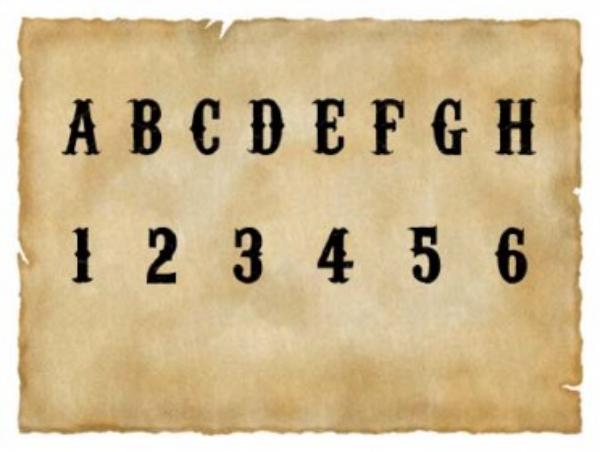
Carnevalee Freakshow brings a theatrical flair to western fonts with its dramatic, carnival-inspired design. This unique typeface combines Old West charm with circus aesthetics, making it ideal for saloon posters, entertainment venues, or any project that needs a touch of vintage showmanship and frontier drama.
Winslet
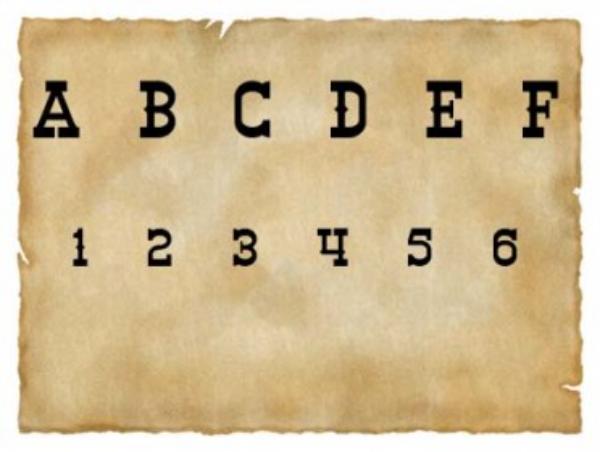
Winslet offers a refined take on classic western fonts with its elegant yet rustic character design. This versatile typeface balances sophistication with frontier authenticity, making it perfect for upscale western brands, vintage labels, or any design that requires a more polished wild west aesthetic.
IFC Insane Rodeo
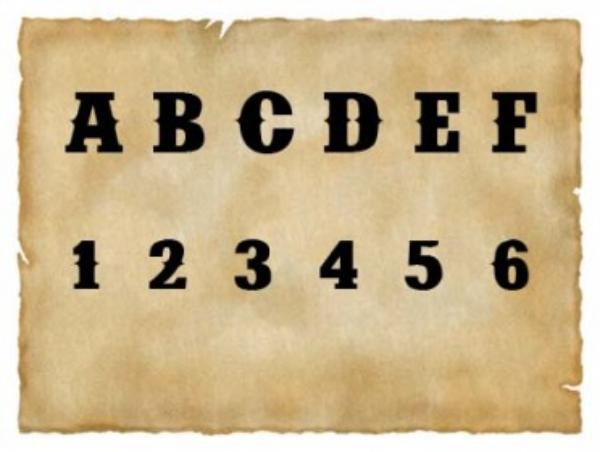
IFC Insane Rodeo embodies the wild, untamed spirit of the American rodeo with its bold, energetic letterforms. This dynamic western font captures the excitement and chaos of frontier life, making it ideal for sports events, adventure brands, or any design that needs to convey raw western energy and excitement.
Western
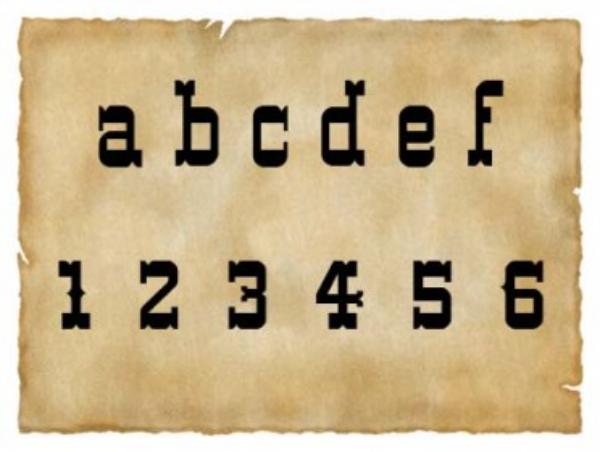
Western is the quintessential wild west font that delivers authentic frontier typography in its purest form. With its classic serif design and traditional proportions, this typeface represents everything iconic about western fonts, making it perfect for historical projects, traditional signage, or any design requiring genuine Old West authenticity.
Woodcut
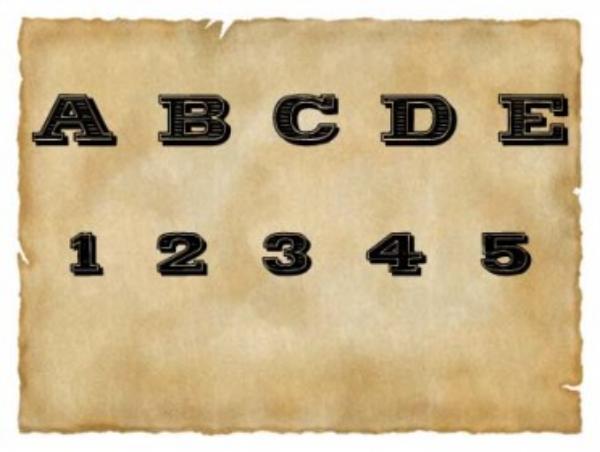
Woodcut brings the craftsmanship of frontier woodworking to typography with its hand-carved appearance and rustic charm. This distinctive western font mimics the look of letters carved from weathered wood, perfect for rustic brands, cabin signage, or any project that needs an authentic handmade frontier aesthetic.
Bleeding Cowboys
Bleeding Cowboys delivers a gritty, distressed take on classic western fonts with its weathered and worn appearance. This popular wild west font features deliberate imperfections that tell stories of hard frontier life, making it ideal for vintage posters, album covers, or any design that needs authentic western grit and character.
Wild West
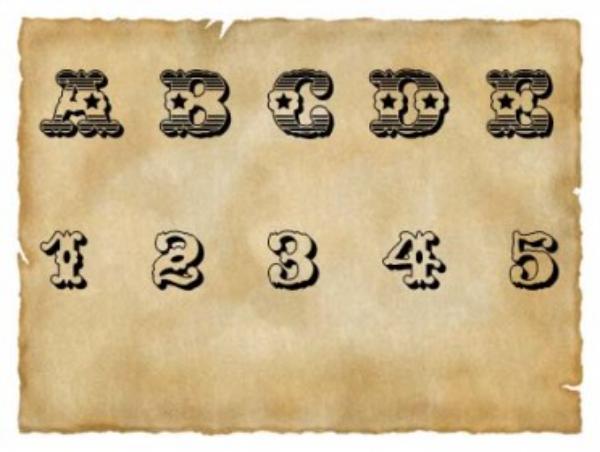
Wild West epitomizes the frontier spirit with its bold, commanding presence and authentic western character. This classic western font captures the essence of lawless territories and frontier justice, making it perfect for western movie titles, gaming graphics, or any design that needs to embody the untamed American frontier experience.
Cowboys
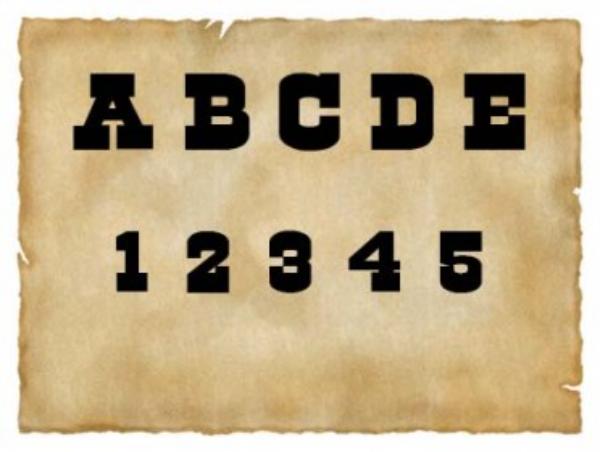
Cowboys celebrates the iconic figures of the American West with its strong, masculine letterforms and traditional western styling. This reliable wild west font evokes images of cattle drives and frontier heroism, making it perfect for ranch branding, western literature, or any project celebrating cowboy culture and heritage.
Bosox
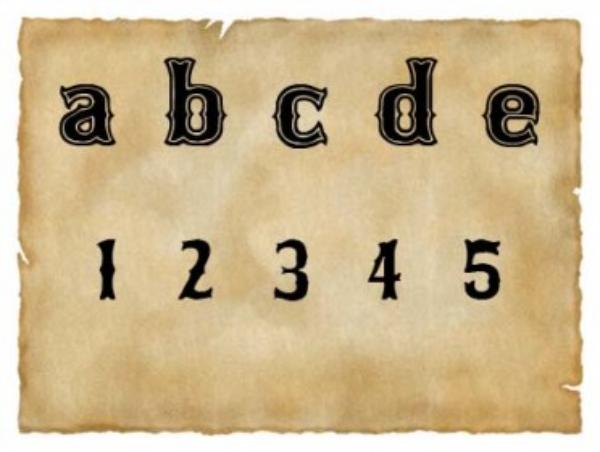
Bosox combines western fonts tradition with modern readability, offering a clean yet characterful approach to frontier typography. This versatile typeface maintains western authenticity while ensuring excellent legibility, making it ideal for contemporary western brands, digital applications, or any project requiring both style and functionality.
De Louisville
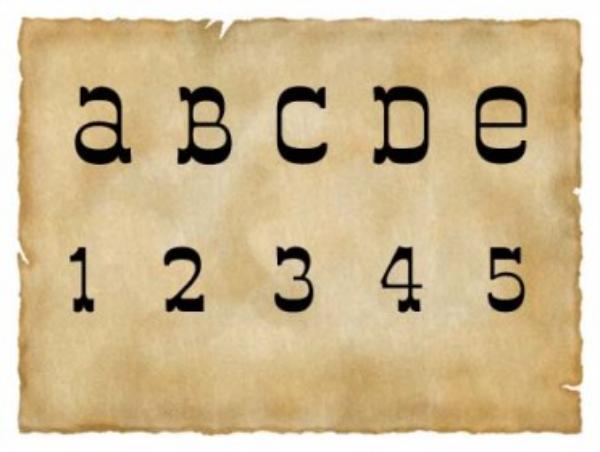
De Louisville brings Southern charm to western fonts with its distinctive regional character and elegant frontier styling. This unique typeface captures the spirit of the American South meeting the Wild West, perfect for bourbon labels, southern-themed restaurants, or any design that needs a blend of hospitality and frontier adventure.
Fred Wild West
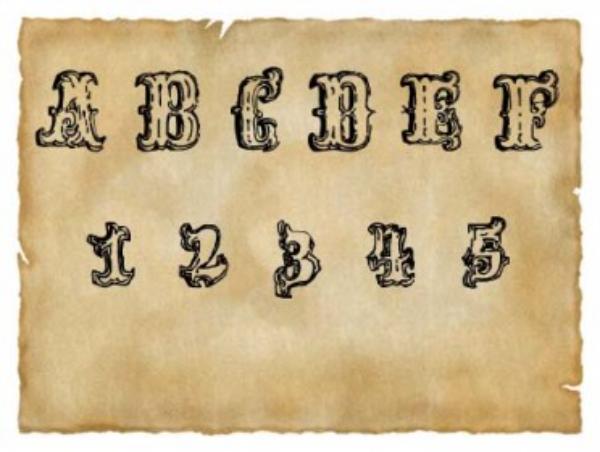
Fred Wild West delivers playful western typography with a friendly, approachable character that doesn’t sacrifice authenticity. This charming wild west font brings personality to frontier design while maintaining classic western elements, making it perfect for family-friendly western attractions, children’s books, or casual western-themed projects.
Saloon
Saloon captures the atmosphere of frontier watering holes with its distinctive barroom character and authentic western styling. This atmospheric western font evokes images of swinging doors and piano music, making it ideal for restaurant signage, bar branding, or any project that needs to recreate the classic American saloon experience.
Carnival brings the festive spirit of frontier celebrations to western fonts with its cheerful, entertaining character that reflects the joy and community of western gatherings. This lively typeface captures the social side of frontier life, making it perfect for event planning, entertainment venues, or any project that needs to celebrate the fun and community aspects of western culture.